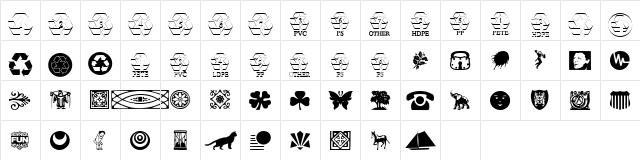
Complete Doodle Dingbats Two SSi Regular glyph index. Displaying only characters natively supported by Doodle Dingbats Two SSi Regular font.
Doodle Dingbats Two SSi is a composed and adaptable typeface that performs quietly and consistently across a wide range of design contexts.